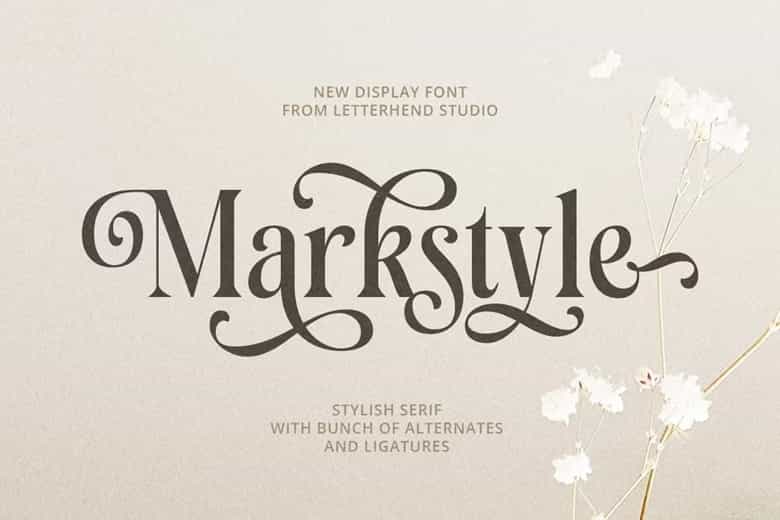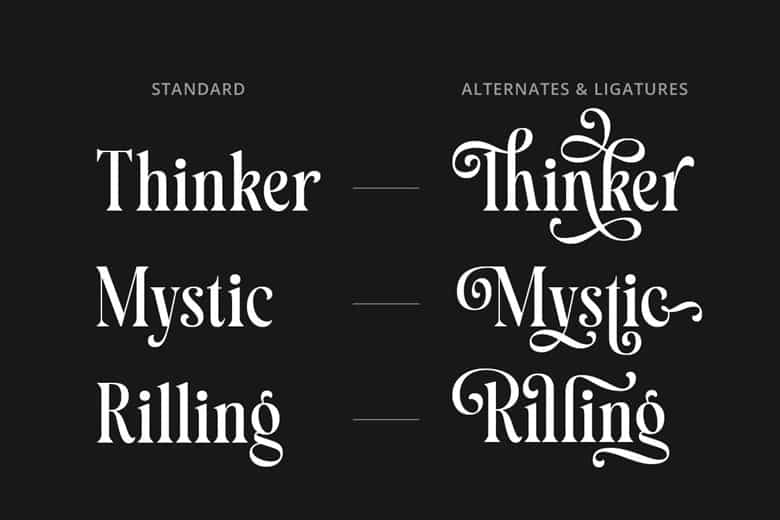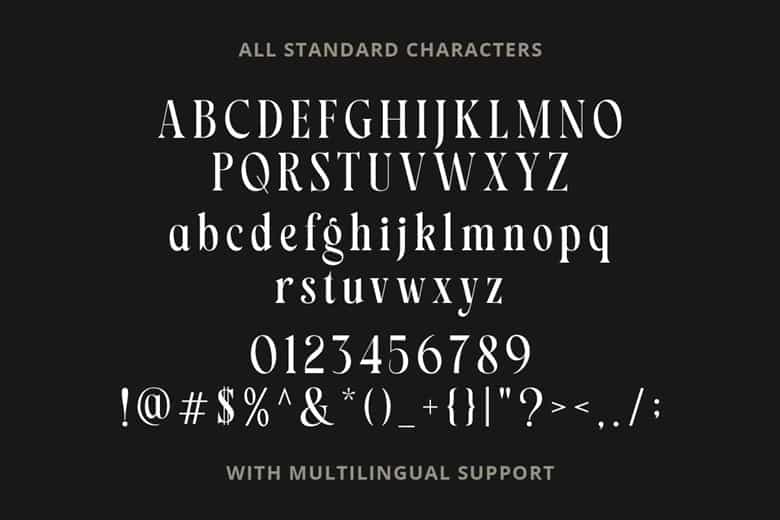
Markstyle is a classy serif typeface that has graceful rounded corners, has swashes, and ligatures. Ideal for branding and packaging and stationery designs particularly opportunity for wedding invitations, it suits a luxury setting for any task. Having therefore many alternates and many ligatures, you will find it easy to design unique and beautiful typography.